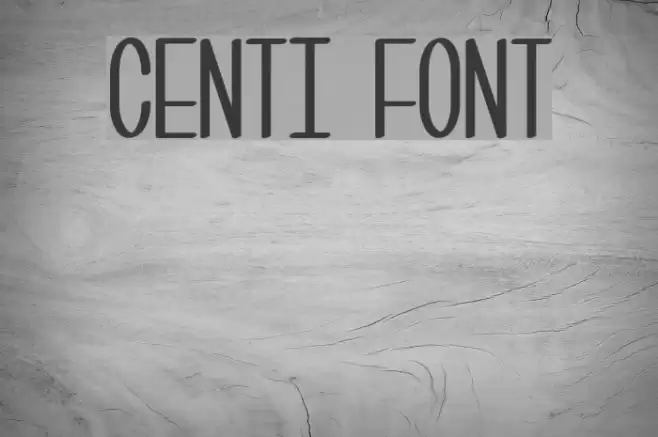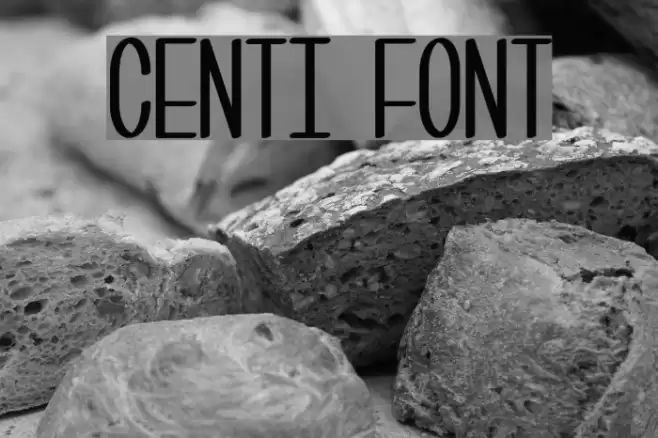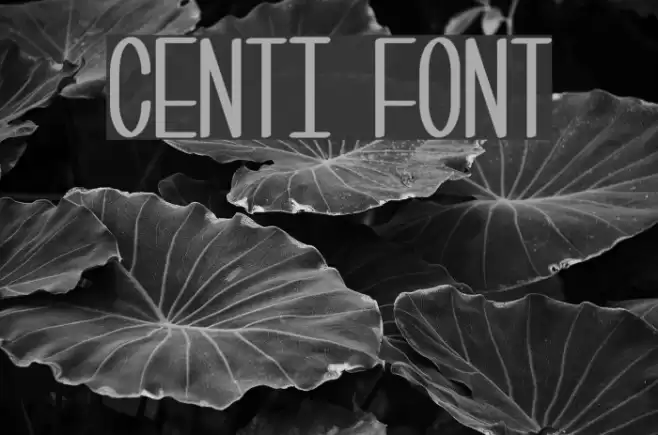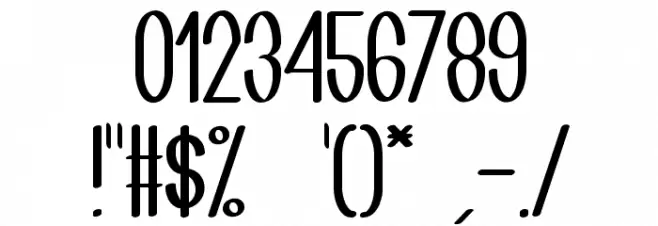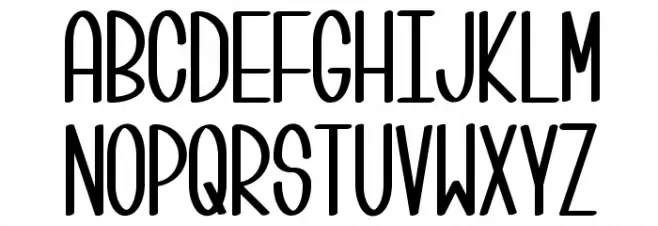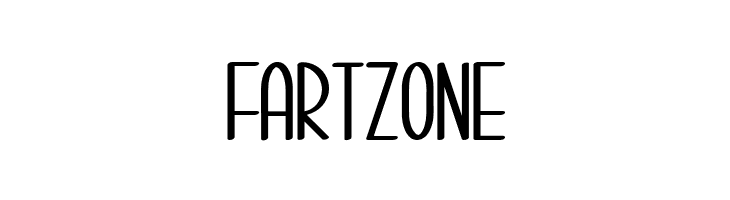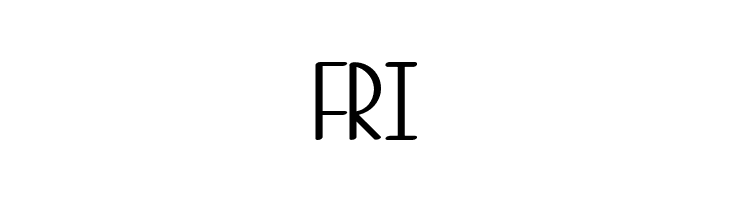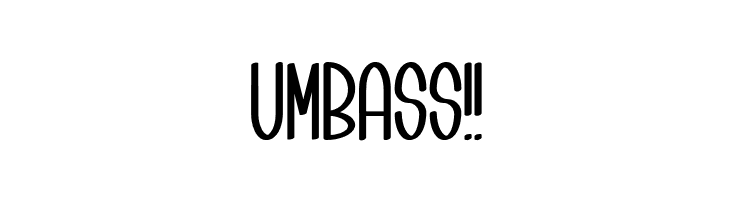
Centi Font
Centi Description
This font features a playful and modern design with rounded edges and a tall, narrow structure. The uppercase and lowercase letters maintain a consistent height, giving it a uniform appearance. The characters are slightly condensed, which adds to its sleek and contemporary feel. The numbers and special characters follow the same design principles, ensuring a cohesive look across all elements. The font's smooth curves and clean lines make it versatile for various design applications.
A modern, playful font with rounded edges and a tall, narrow structure from Script fonts.